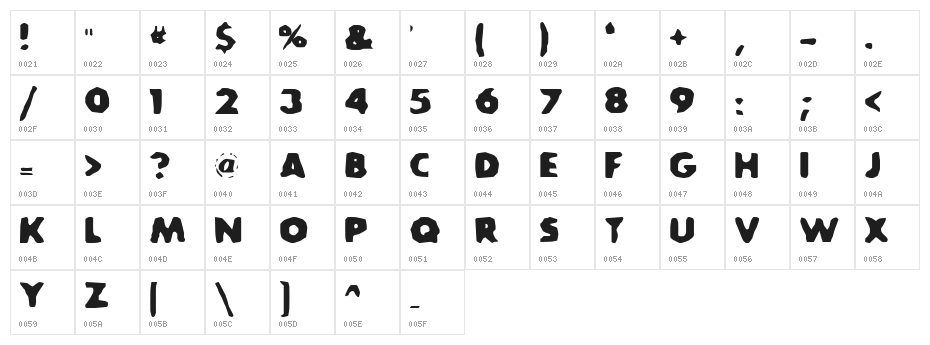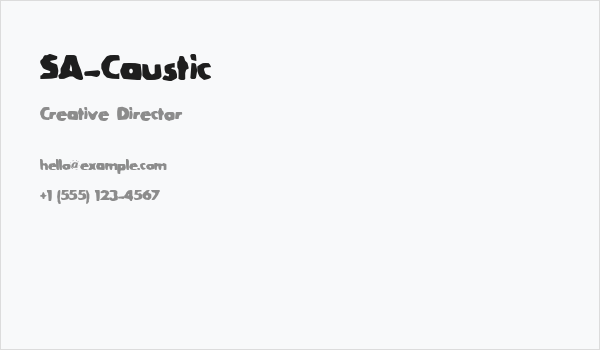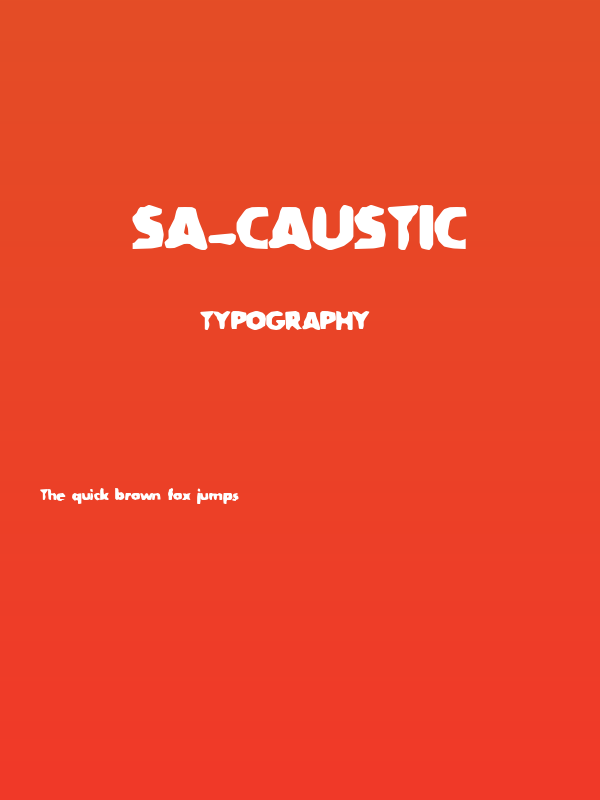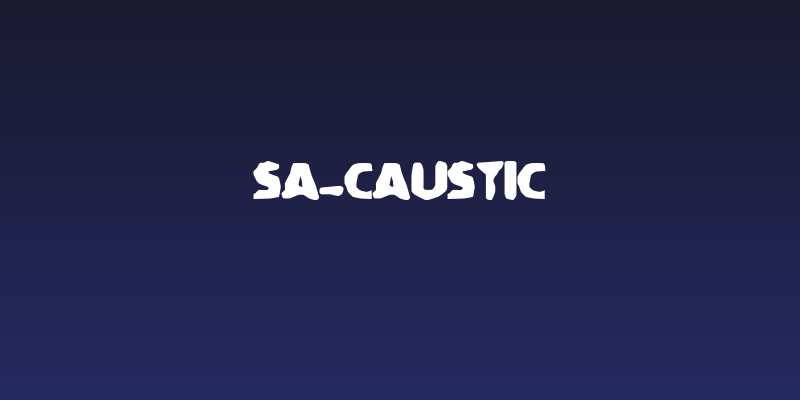
SA-Caustic Font
SA-Caustic Description
This font features a bold and rugged design with a distinctly hand-drawn appearance. The characters are irregular and organic, giving them a playful and dynamic feel. Each letter has a unique shape, with uneven edges and varying thickness, creating a sense of movement and energy. The numbers and special characters follow the same style, maintaining consistency throughout the set. This font is ideal for projects that require a bold, eye-catching look with a touch of whimsy.
| Proposed Projects | Ideal for posters, album covers, children's books, and creative branding. |